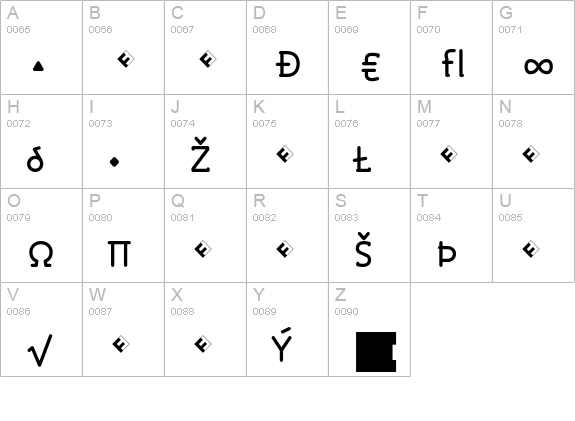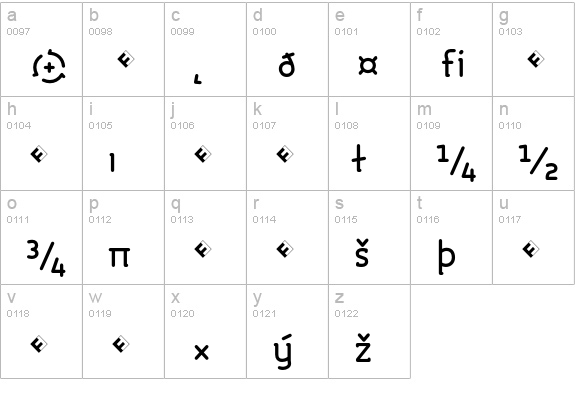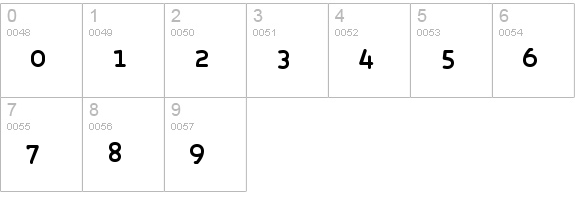
Roice-MediumExpert Font Details
Roice-MediumExpert is a versatile and modern font that strikes the perfect balance between professionalism and creativity. With its sleek lines and sophisticated design, this font is ideal for a wide range of projects, from branding to editorial design. The medium weight of Roice-MediumExpert makes it easy to read and perfect for both digital and print applications. What sets Roice-MediumExpert apart is that it is available for free download at FontsMarket.com. This means that you can easily access this high-quality font without any cost, making it a valuable addition to your font library. Whether you are a designer looking for a new go-to font or a business owner wanting to elevate your brand, Roice-MediumExpert is the perfect choice. Download it today and see the difference it can make in your projects.